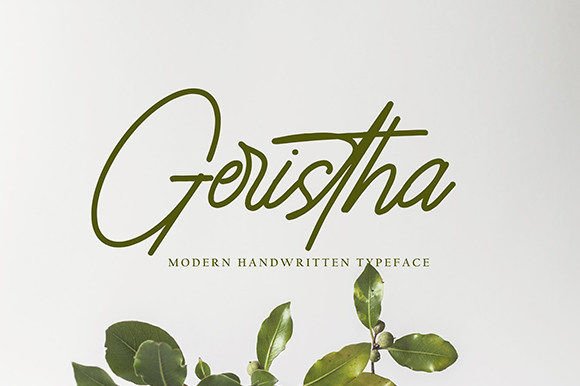
In search of the signature style that transforms your words into works of art? Look no further than Geristha, the enchanting script font that breathes life into your creative endeavors.
With every stroke of Geristha, let your imagination soar as you craft captivating quotes that ignite inspiration, design logos that leave an enduring mark, and create blog headers that captivate your audience. Summon the essence of sophistication for posters and branding that exude elegance, and pen letters and invitations that carry a touch of timeless grace.
Geristha is not merely a font; it's the key to unlocking your artistic potential. Its versatility knows no bounds, empowering you to infuse a touch of magic into every project you undertake. Discover the font that empowers you to write your story in a style that is uniquely yours.